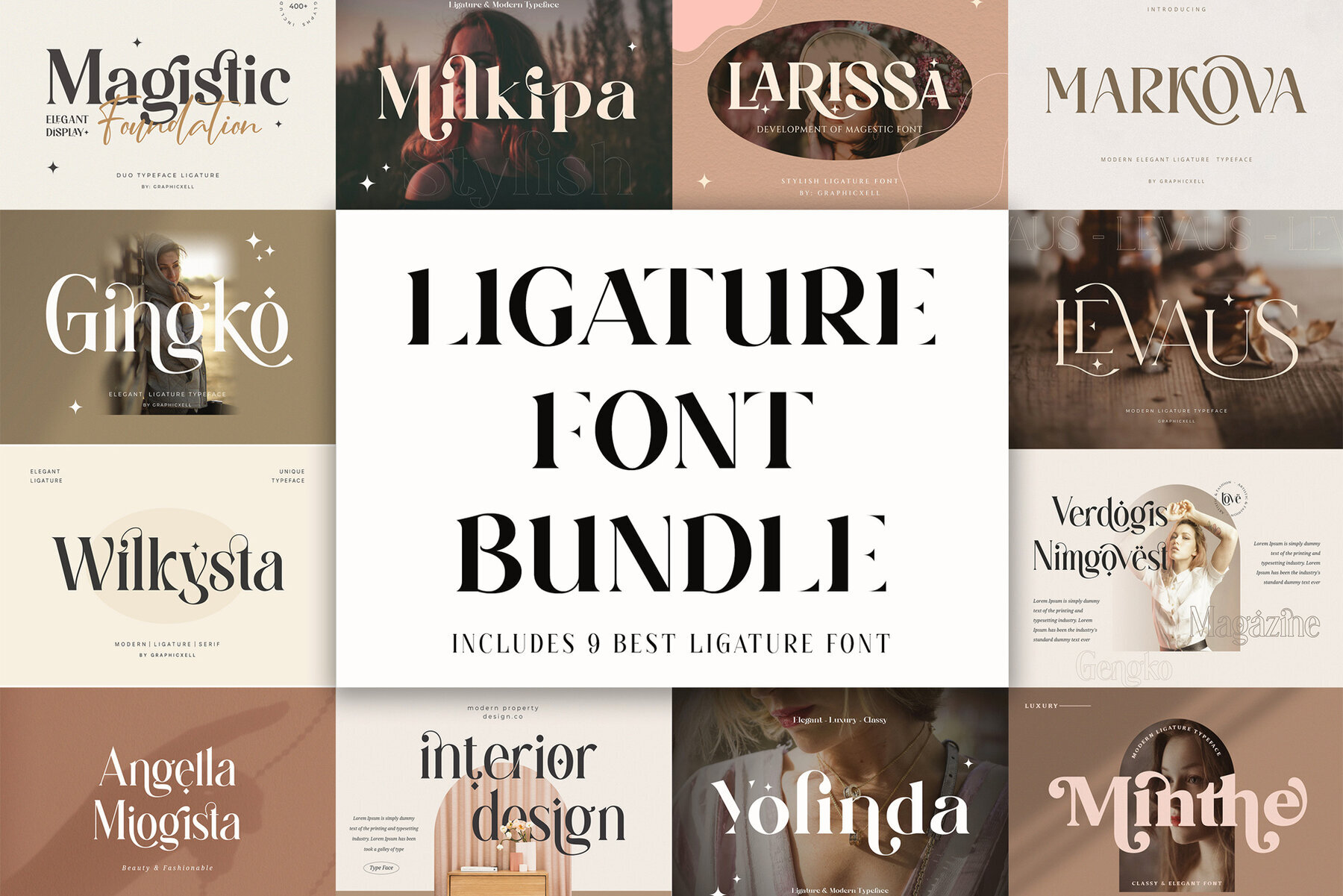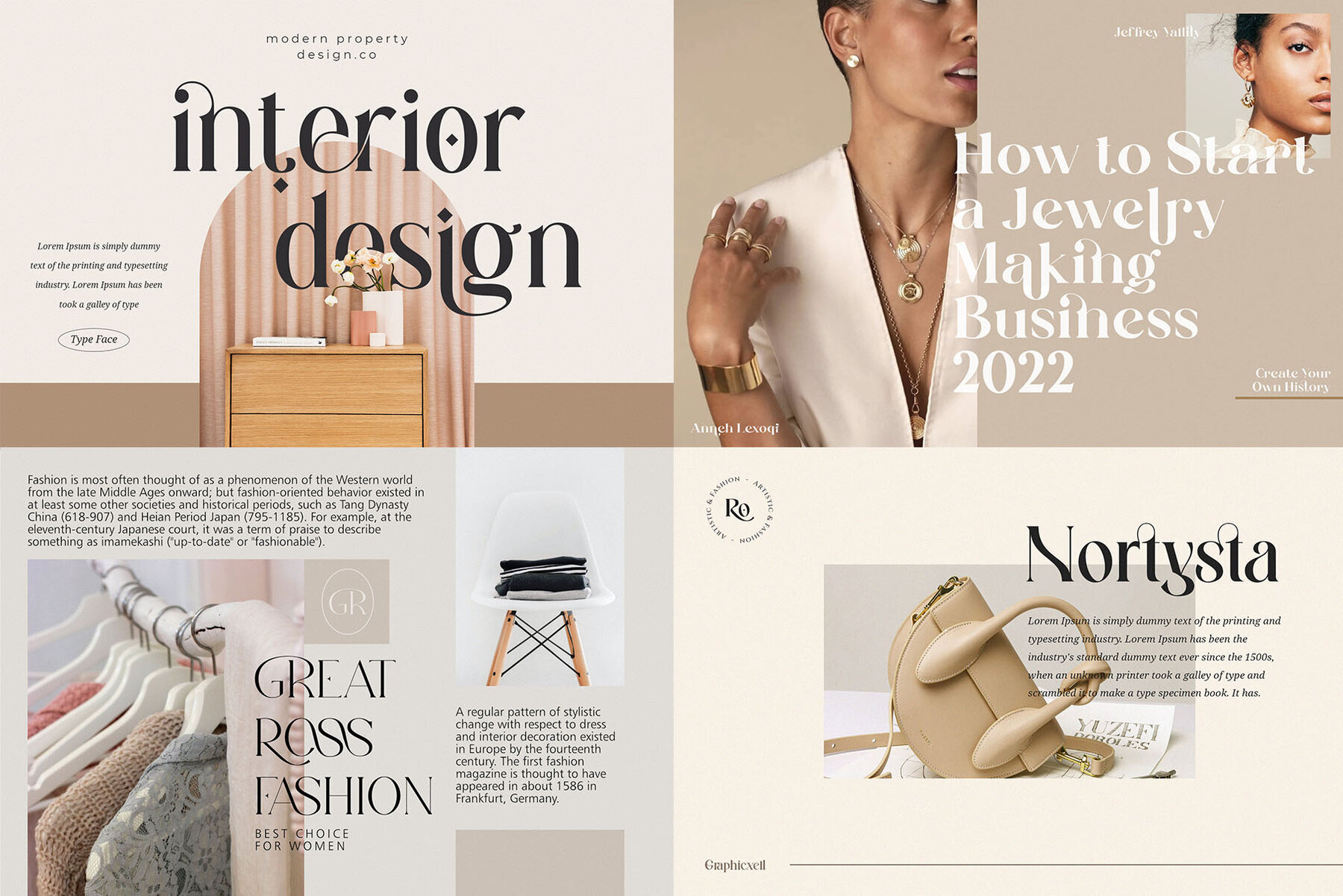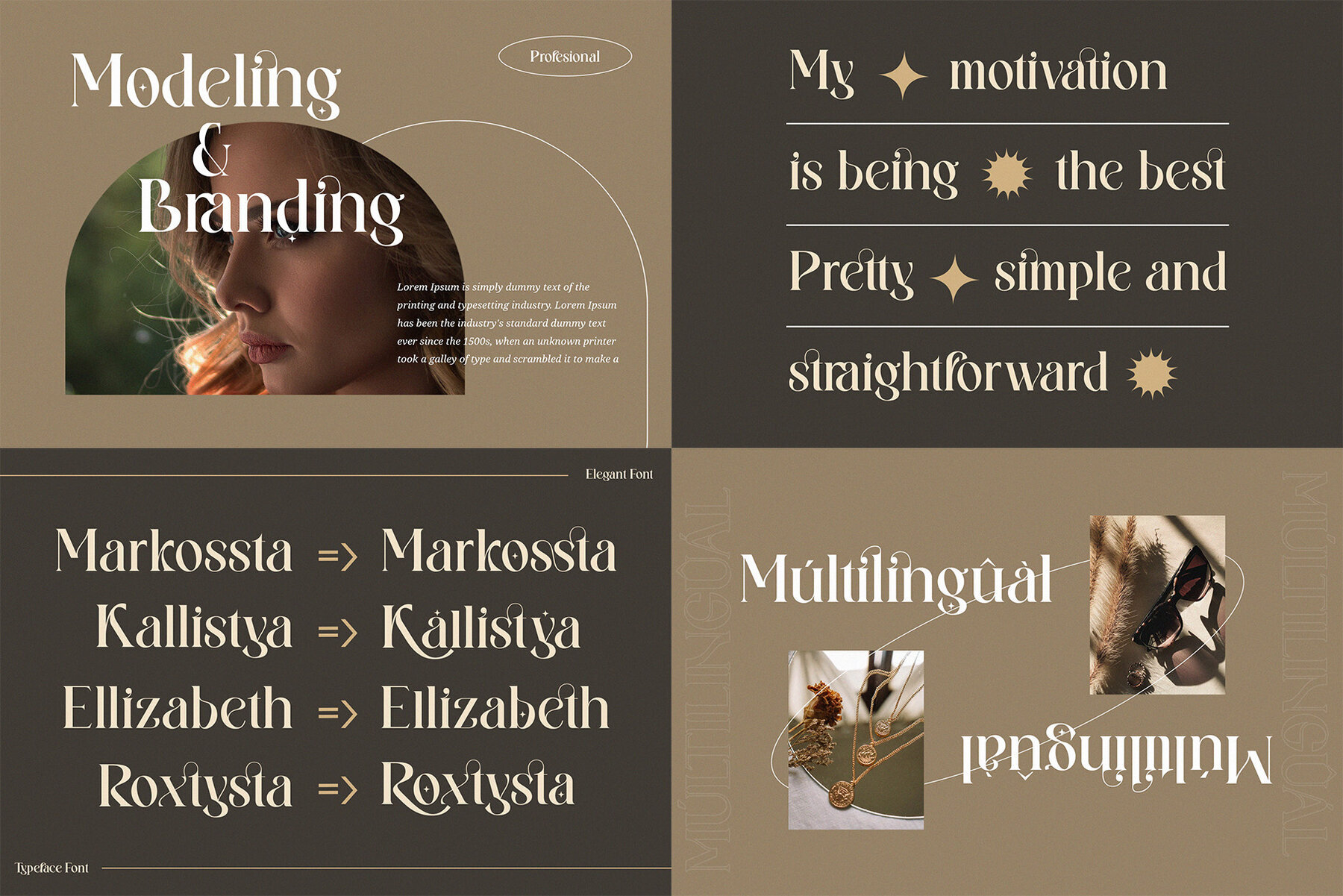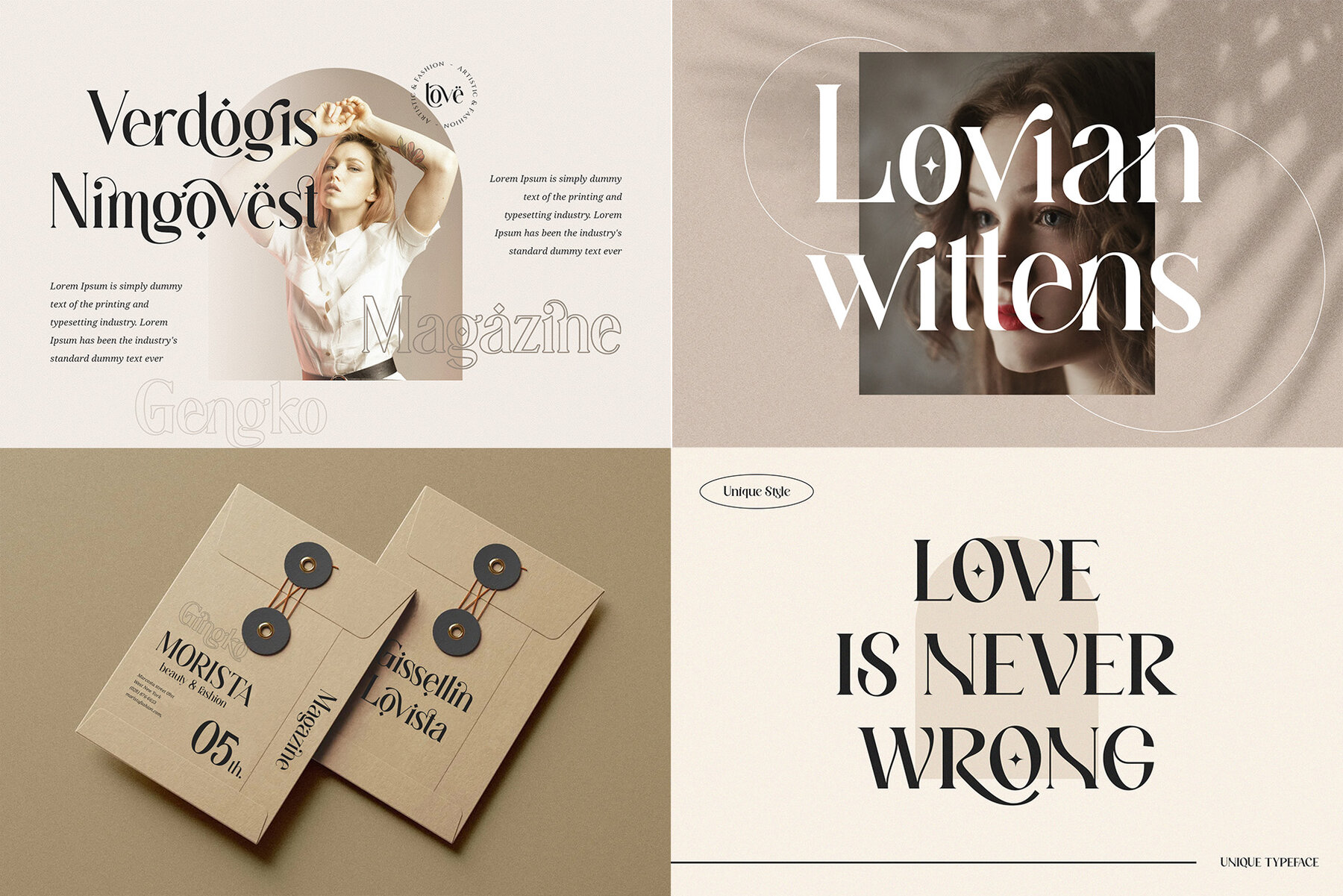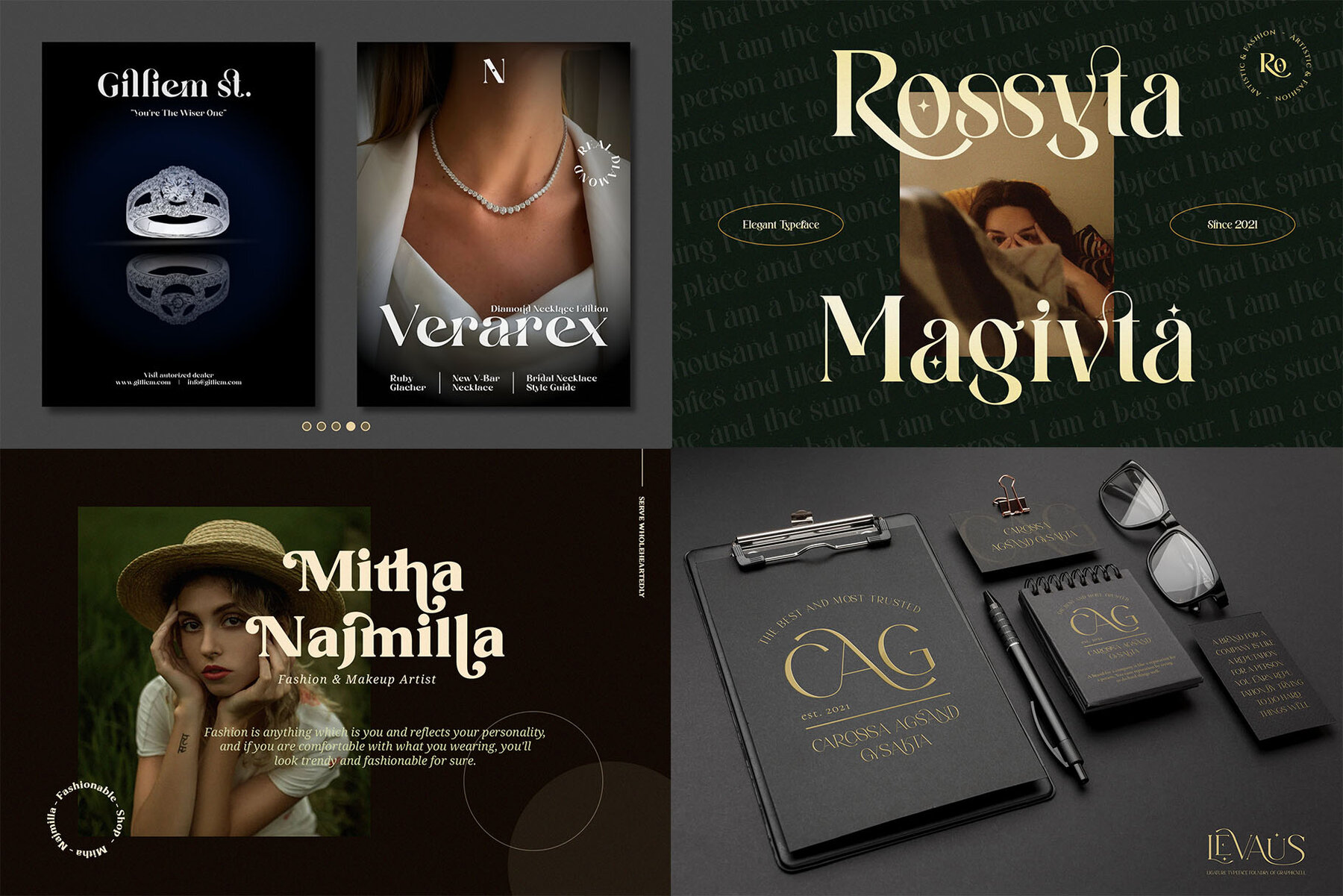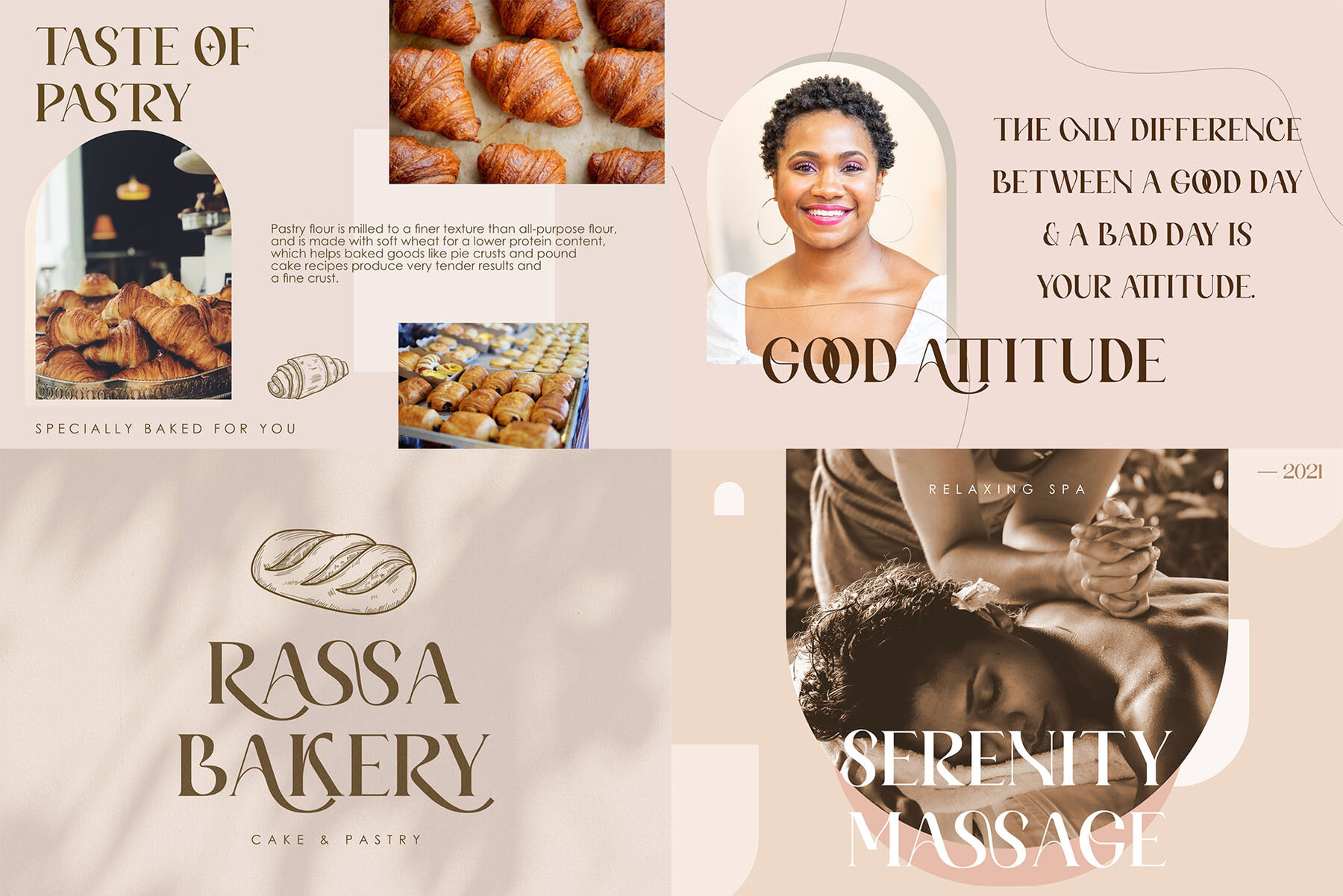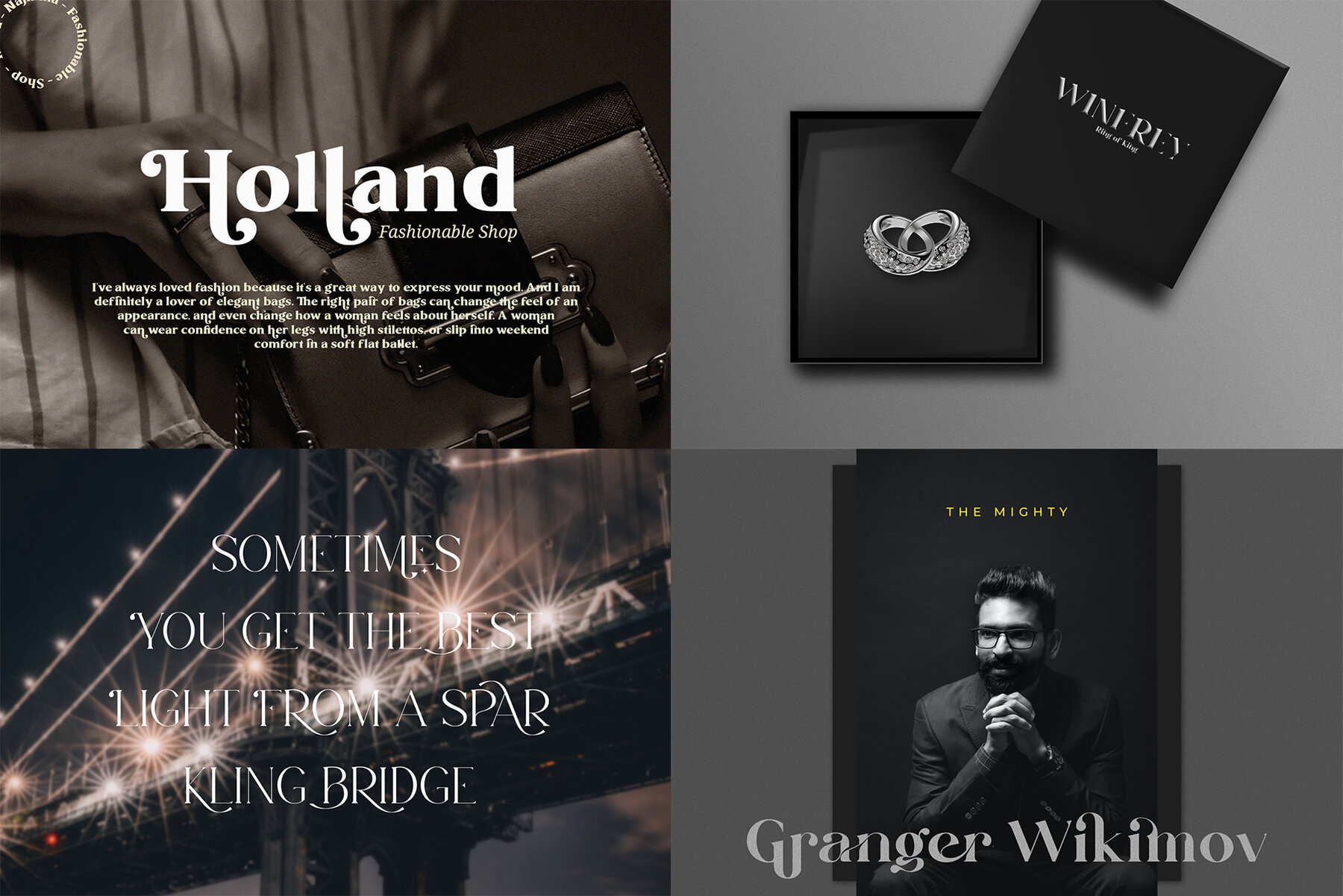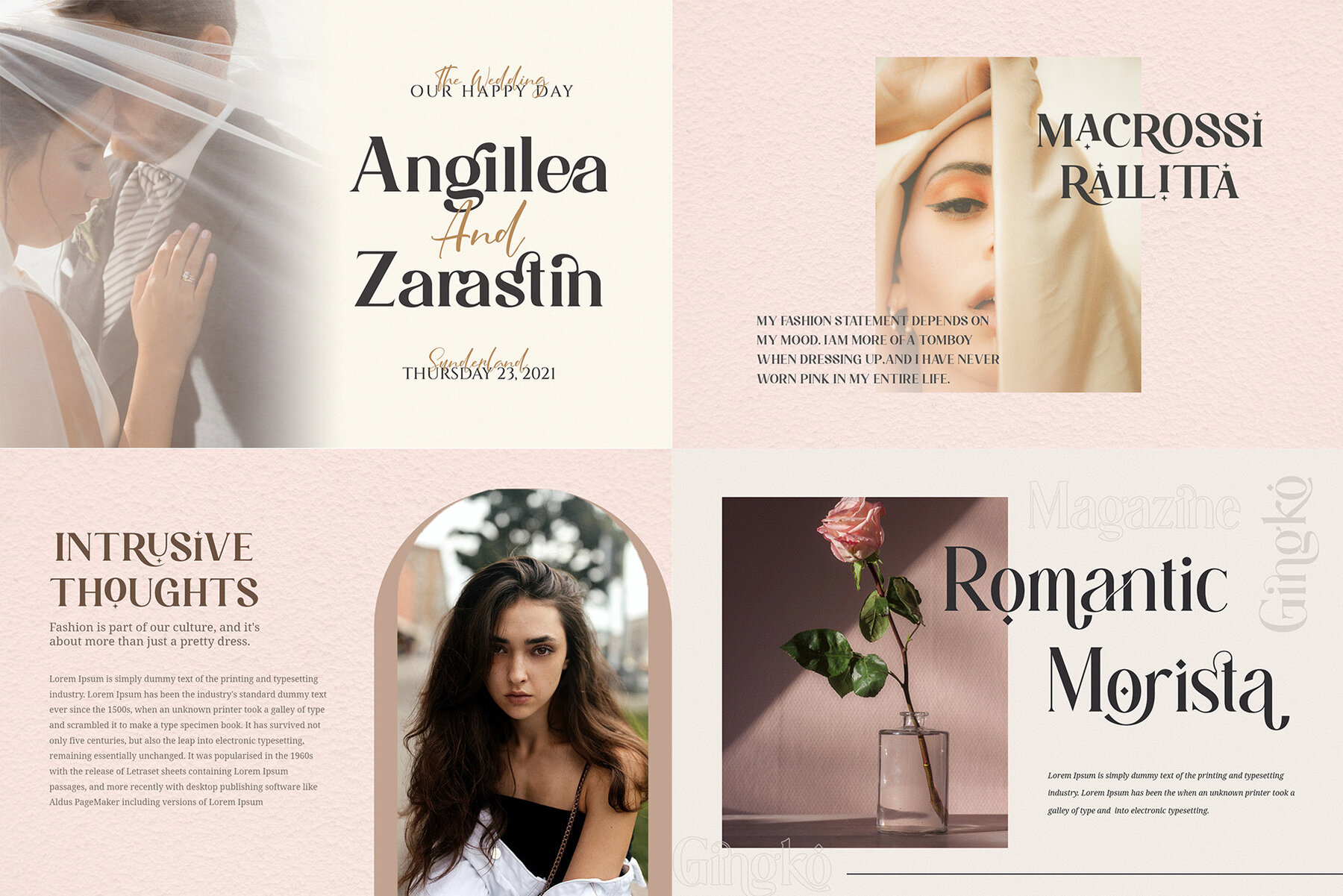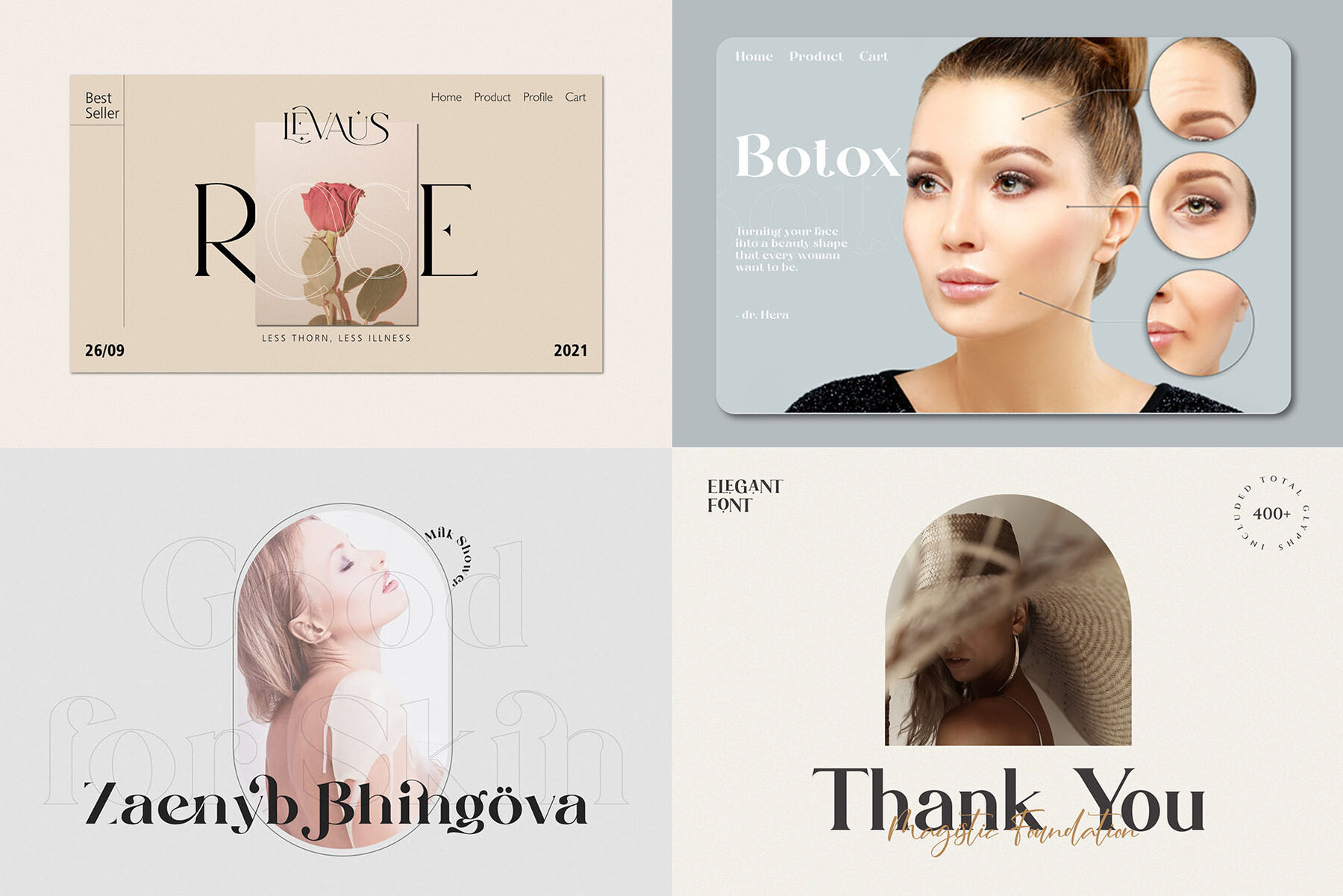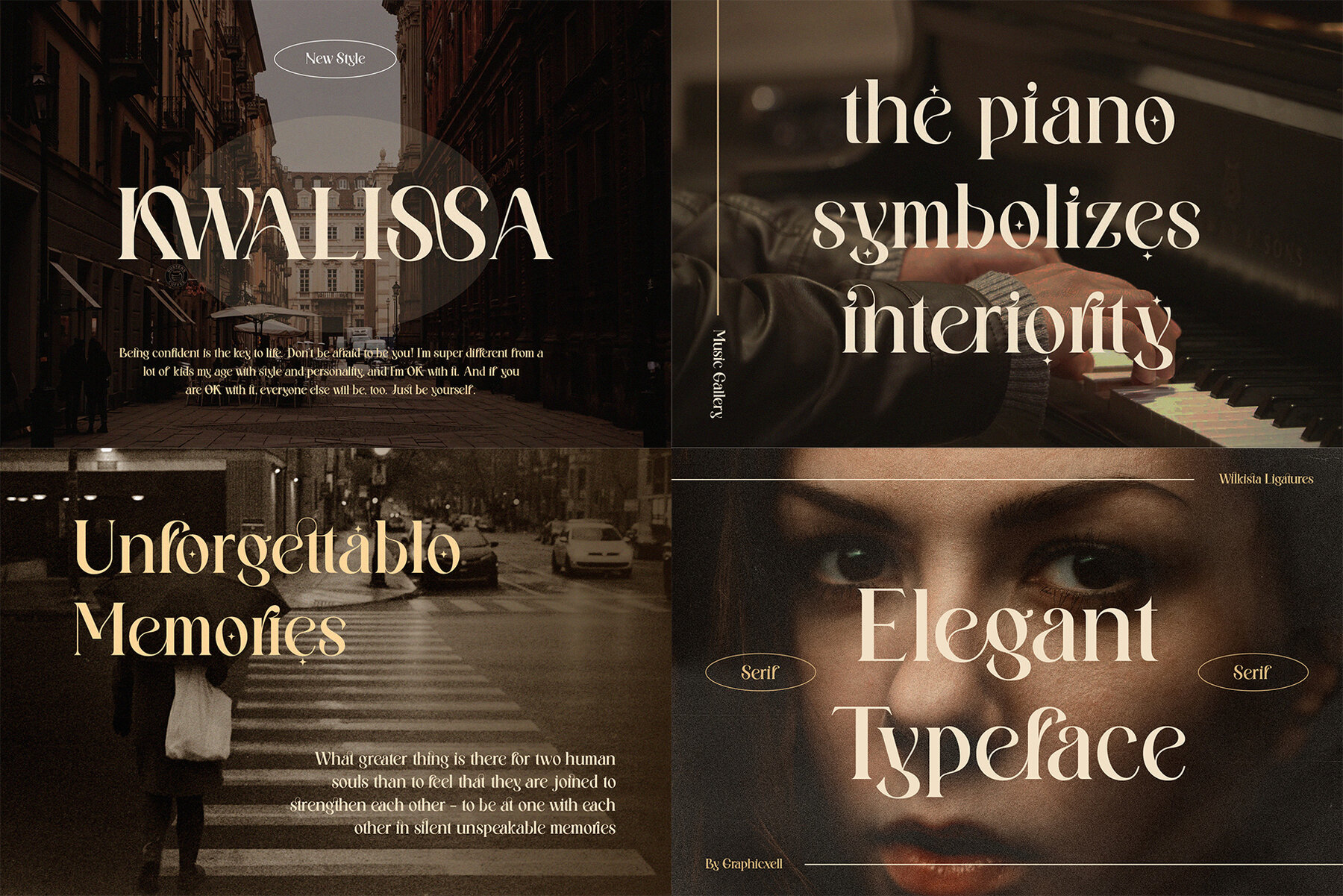
Ligature Serif Font Bundle
Unleash a new spectrum of creativity with the enthralling Ligature Serif Font Bundle! Crafted meticulously by the seasoned designer, Graphicxell, this bundle is a treasure trove for graphic designers and marketing firms striving for innovation and excellence in their visuals. The serif font bundle offers a blend of elegance and modernity, serving as an ideal choice for a variety of creative initiatives. What makes this bundle so unique is its versatility. Bridging the gap between traditional serifs and contemporary style, its comprehensive duo font and ligature font style components bring a fresh twist to any project. Whether you're revamping a brand logo or sprucing up your social media content, designing a chic invitation or enhancing a blog's aesthetics, the Ligature Serif Font Bundle flexibly adapts to your needs. So let's dive into this world of stylish typography, where each stroke combines sophistication with usability, equipping you with a powerful tool that's pivotal to captivating and meaningful design.Immerse in Creativity with the Dynamic Ligature Serif Font Bundle